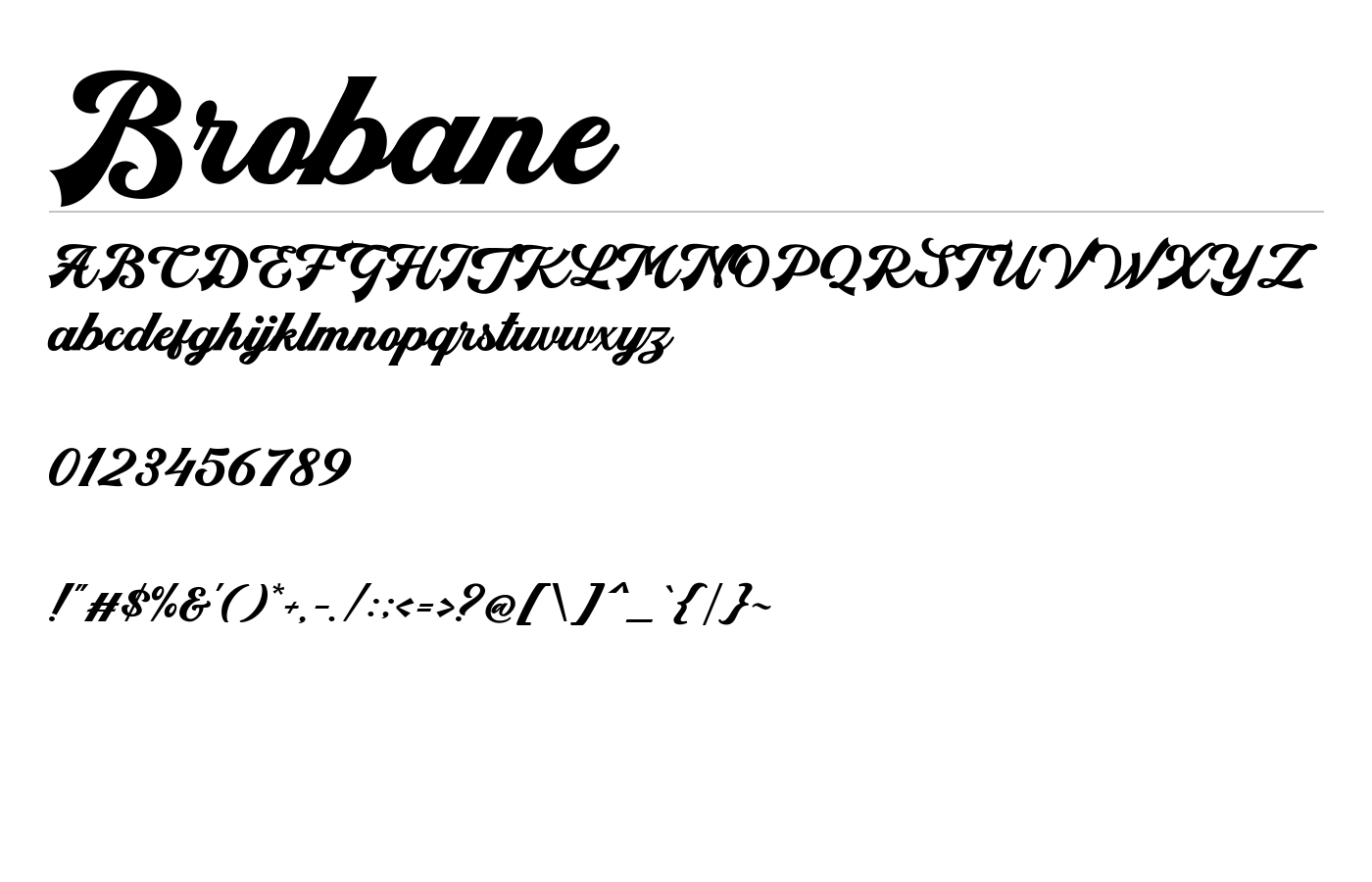
Brobane is a bold, elegant script font with a vintage flair, featuring smooth, flowing strokes and high contrast between thick and thin lines. Its stylish, cursive letterforms with distinctive swashes make it perfect for creating sophisticated logos, headlines, and branding projects that demand a classic yet impactful appearance. This font works beautifully in fashion, luxury, and editorial designs where a touch of refined personality is desired.
Brobane Font